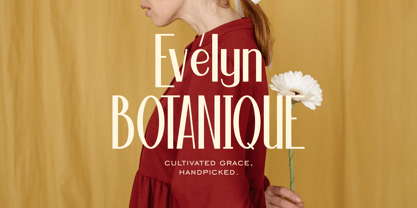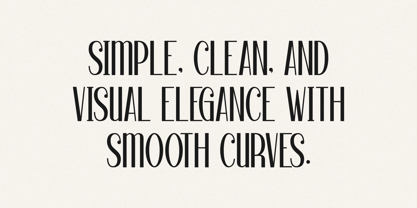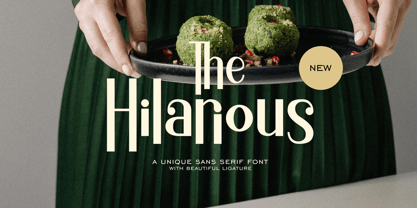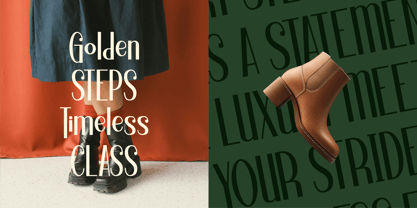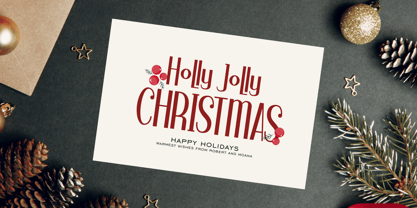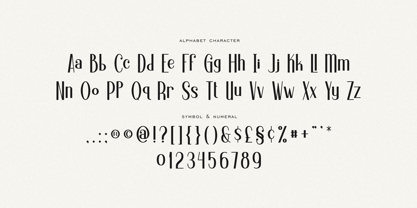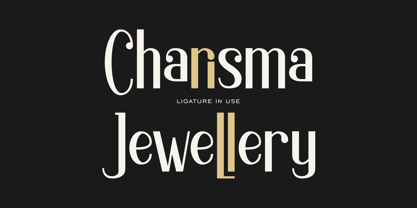
The Hilarious
by Imoodev
The The Hilarious Font Family was designed by Aulia Savira Putri and published by Imoodev. The Hilarious contains 1 styles. More about this family
Introducing The Hilarious, a stunningly unique and elegant sans serif font that effortlessly blends modern chic with timeless sophistication. The Hilarious commands attention and creates a captivating visual rhythm. Its letterforms are a masterclass in balance, combining strong, clean lines with gracefully smooth curves that give it a soft, approachable feel. This isn't your standard sans serif, it's a statement piece designed to elevate your work. One of its most enchanting features is the collection of beautiful and unique ligatures, adding a touch of bespoke charm and a handcrafted feel to your typography. The tall, stately capital letters are perfect for making an impact, while the fluid lowercase set is incredibly legible and stylish for body text or subheadings. Whether you're designing a logo for a jewelry brand, crafting headlines for a fashion magazine, or creating beautiful quotes for social media, The Hilarious provides the visual elegance and unique flair you need to make your project unforgettable.
Designers: Aulia Savira Putri
Foundry: Imoodev